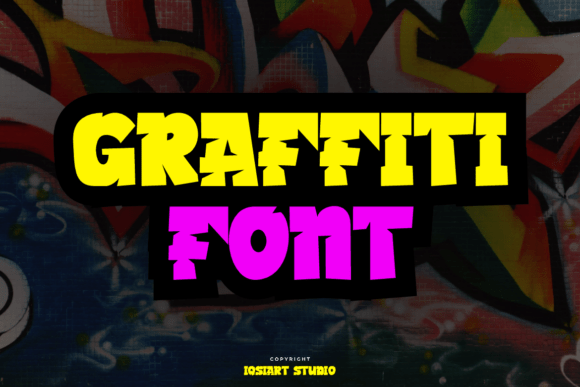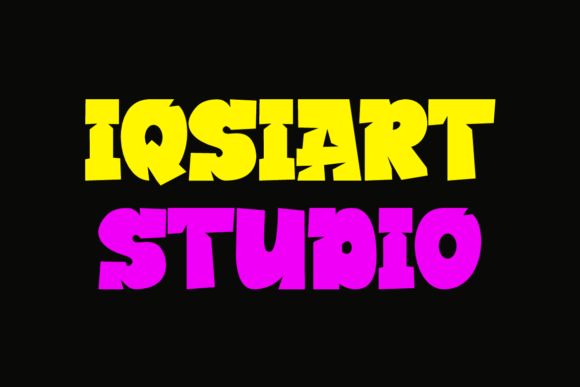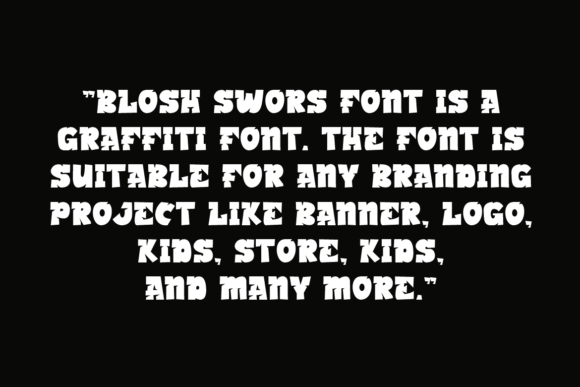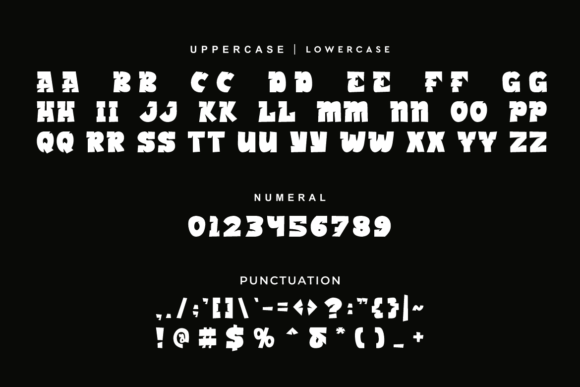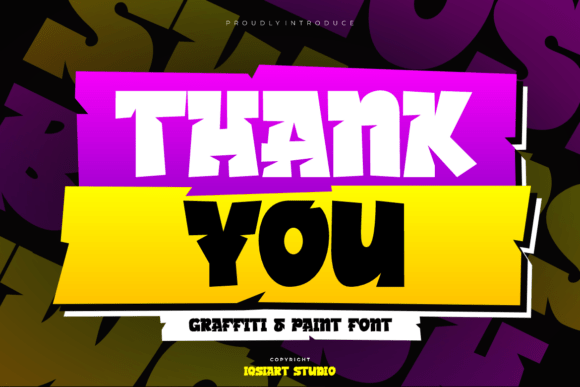
Unleash Your Creativity with Blosh Swors Font: The Ultimate Graffiti and Paint Font
Are you a designer, craftsperson, or artist looking for a font that embodies the raw energy and edginess of street art? Look no further than Blosh Swors Font, a bold and electrifying typeface that bursts with street-style attitude. With its jagged edges, chunky shapes, and hand-sprayed vibe, Blosh Swors is the perfect addition to any urban design, hip-hop poster, apparel, or youth-oriented branding project.
The Inspiration Behind Blosh Swors Font
Blosh Swors Font is inspired by the vibrant and dynamic world of graffiti and street art. The font’s creator aimed to capture the essence of hand-sprayed letters and bold, chunky shapes that are characteristic of urban street art. The result is a font that exudes confidence, energy, and a rebellious spirit that’s sure to make your designs stand out.
Key Features of Blosh Swors Font
- Bold and Electrifying Design: Blosh Swors Font features a bold and electrifying design that’s perfect for making a statement. Its jagged edges and chunky shapes give it a raw, edgy look that’s sure to grab attention.
- Hand-Sprayed Vibe: The font’s hand-sprayed vibe gives it a unique, organic feel that’s reminiscent of street art. This makes it perfect for designs that require a touch of urban grit and authenticity.
- Street-Style Attitude: Blosh Swors Font embodies the attitude and swagger of street art. Its bold, confident design is sure to add a touch of urban cool to any design project.
- Versatile and Highly Legible: Despite its bold design, Blosh Swors Font is highly legible and versatile. It can be used for a wide range of design projects, from urban designs and hip-hop posters to apparel and youth-oriented branding.
Use Cases for Blosh Swors Font
Blosh Swors Font is perfect for a wide range of design projects that require a bold, edgy look. Here are some use cases to get you started:
- Urban Designs: Add a touch of street-style attitude to your urban designs with Blosh Swors Font. Its bold, chunky design is perfect for posters, flyers, and other marketing materials.
- Hip-Hop Posters: Create eye-catching hip-hop posters with Blosh Swors Font. Its hand-sprayed vibe and bold design make it perfect for promoting concerts, events, and album releases.
- Apparel: Add a touch of urban cool to your apparel designs with Blosh Swors Font. Its bold, edgy design is perfect for t-shirts, hoodies, and other clothing items.
- Youth-Oriented Branding: Use Blosh Swors Font to create bold, eye-catching branding materials for youth-oriented products and services. Its street-style attitude and hand-sprayed vibe make it perfect for targeting younger audiences.
Tips for Using Blosh Swors Font
Here are some tips for getting the most out of Blosh Swors Font:
- Experiment with Different Colors: Blosh Swors Font looks great in bold, bright colors. Experiment with different color schemes to find the perfect look for your design.
- Pair with Other Fonts: Blosh Swors Font pairs well with other bold, edgy fonts. Experiment with different font combinations to create a unique look.
- Use it Sparingly: Blosh Swors Font is bold and attention-grabbing, so use it sparingly to avoid overwhelming your design.
Blosh Swors Font is a bold and electrifying graffiti and paint font that’s perfect for designers, craftspersons, and artists looking to add a touch of street-style attitude to their designs. With its jagged edges, chunky shapes, and hand-sprayed vibe, it’s sure to make your designs stand out in a crowd. Whether you’re working on urban designs, hip-hop posters, apparel, or youth-oriented branding, Blosh Swors Font is the perfect choice.